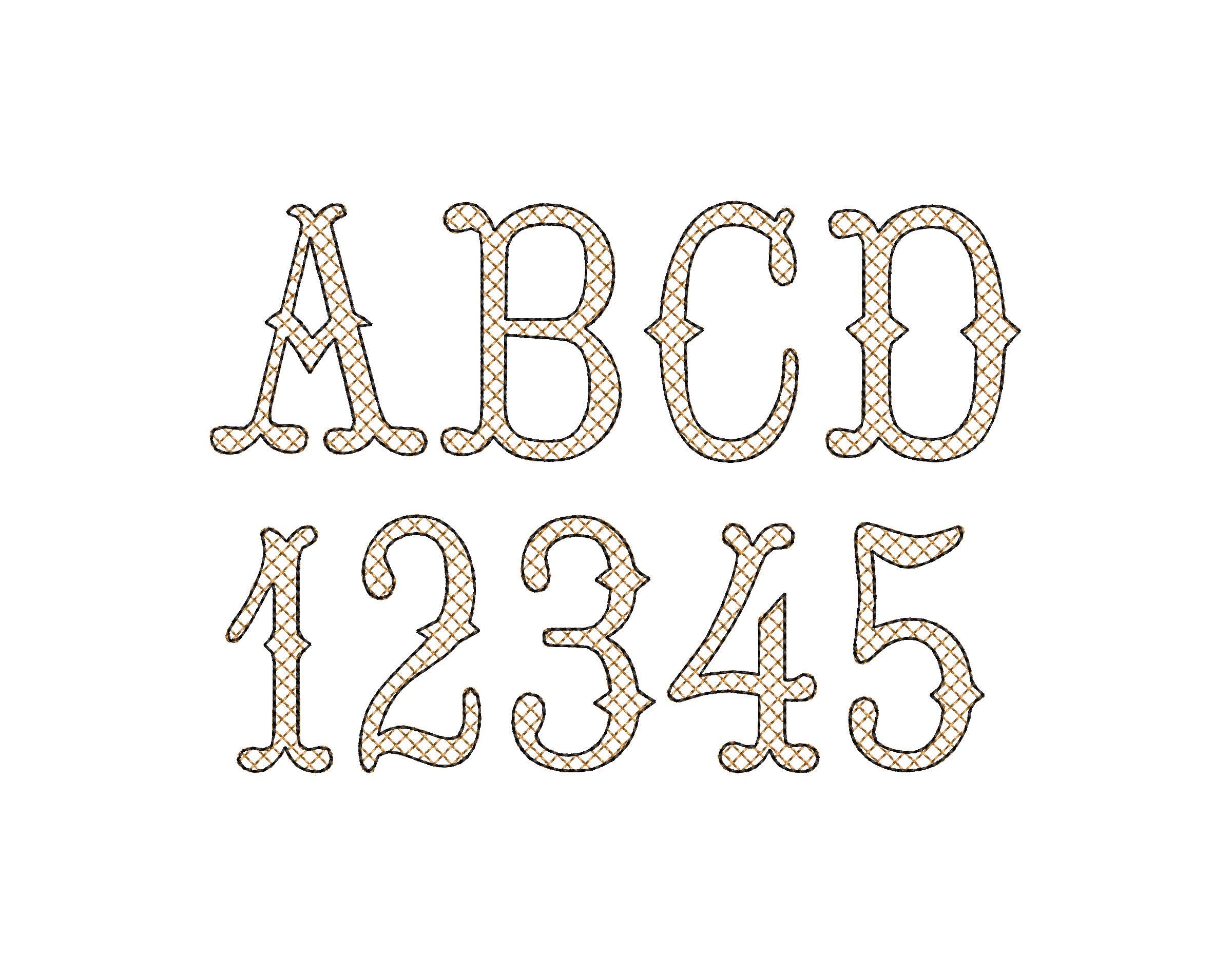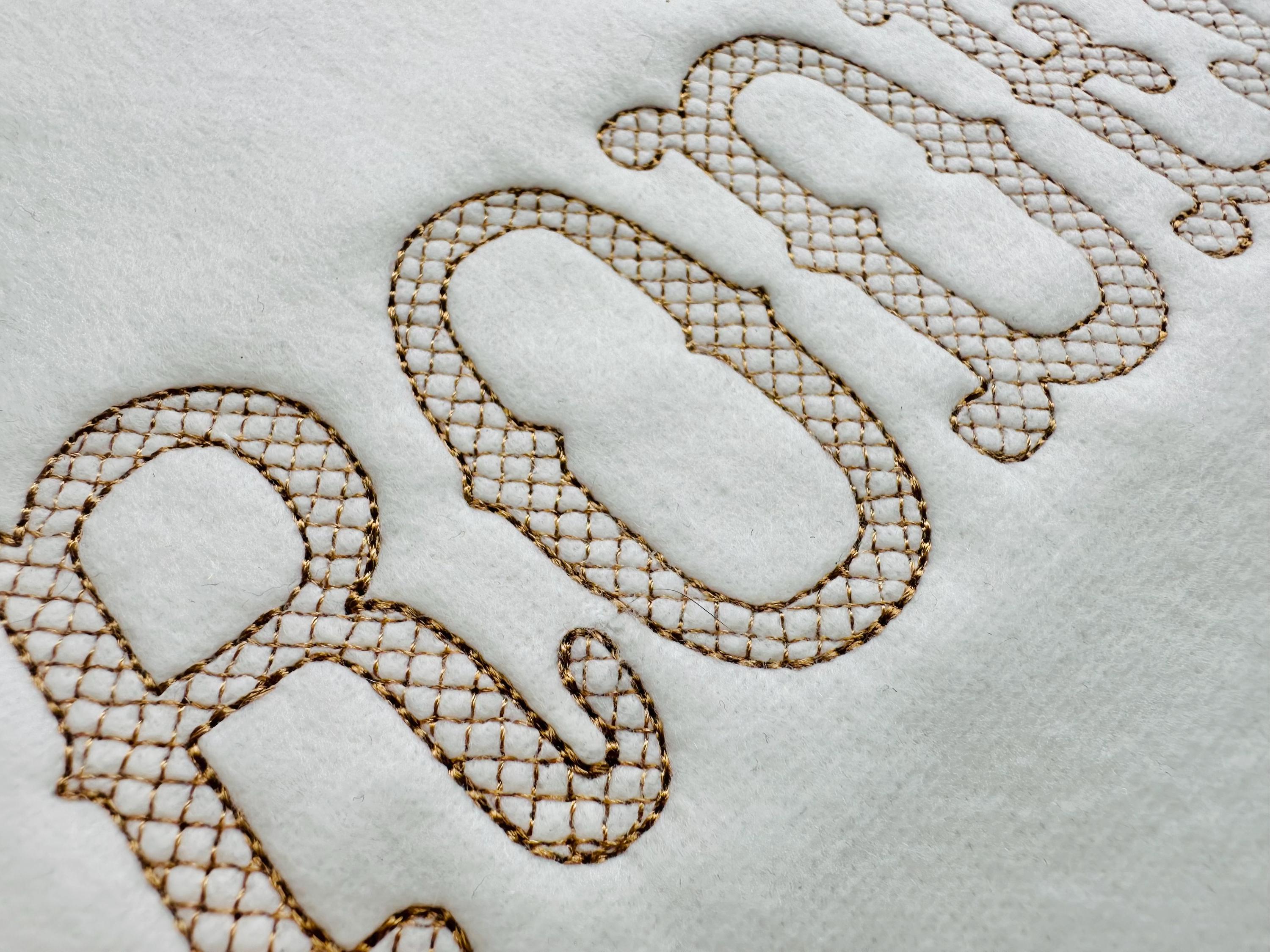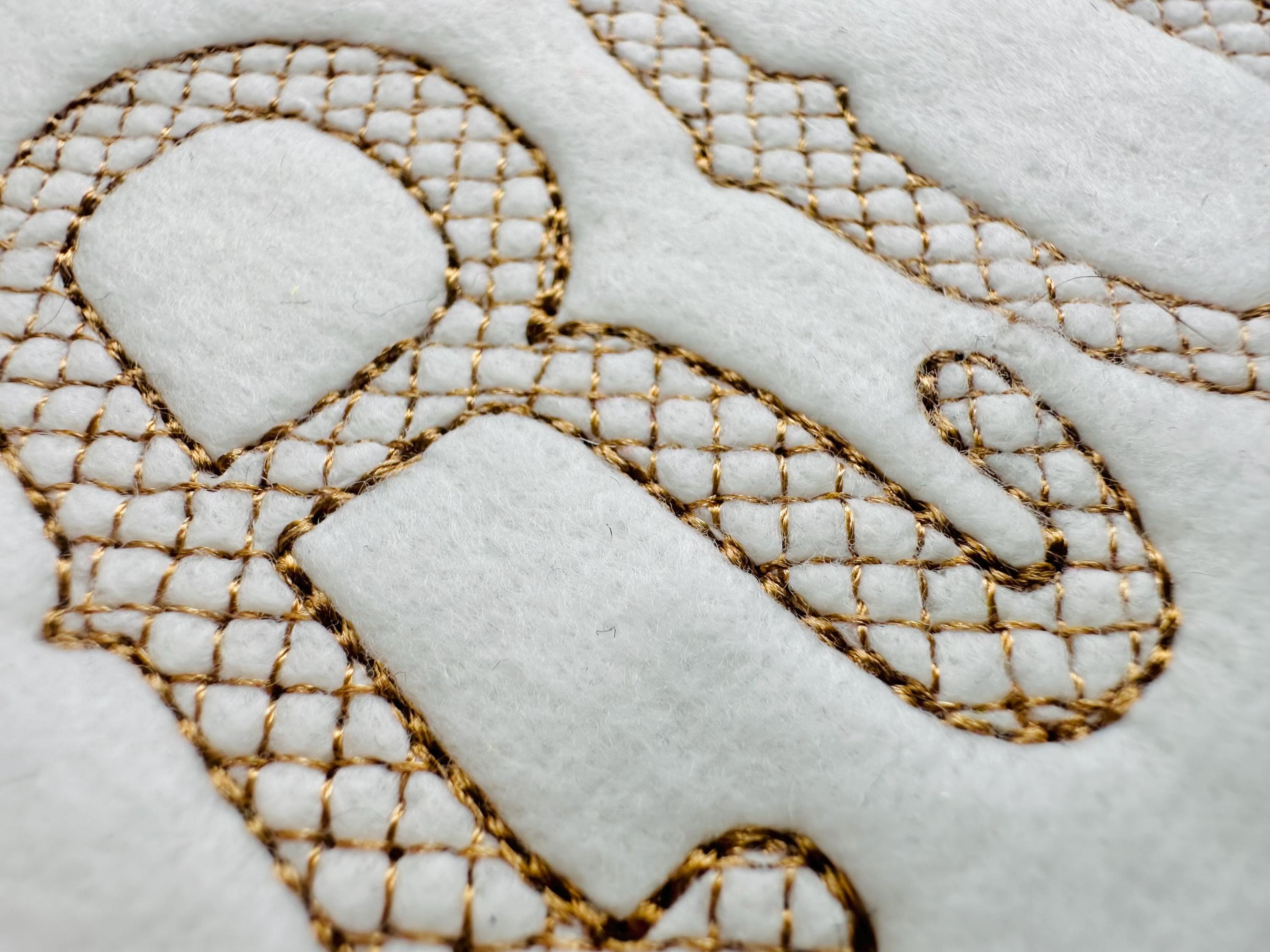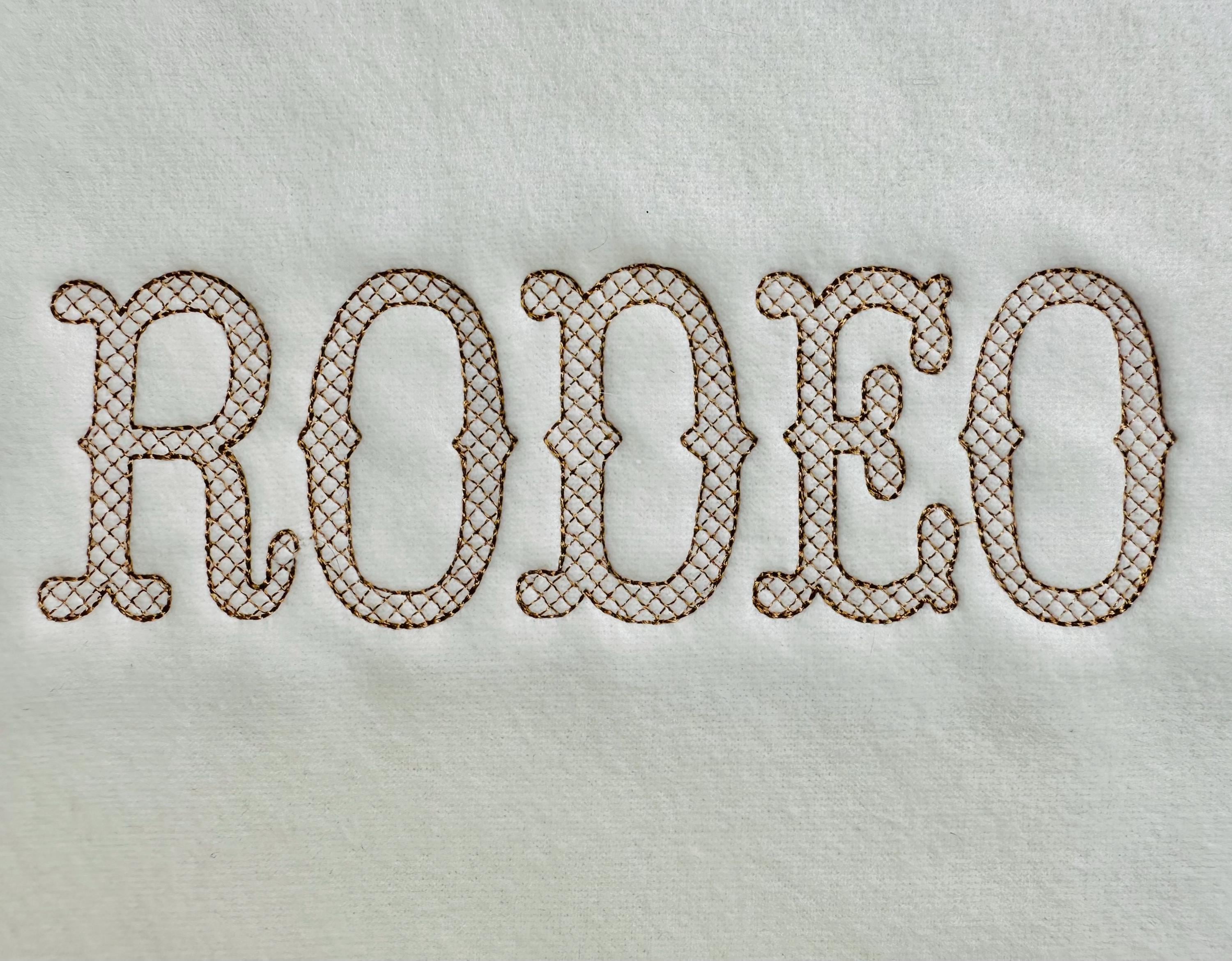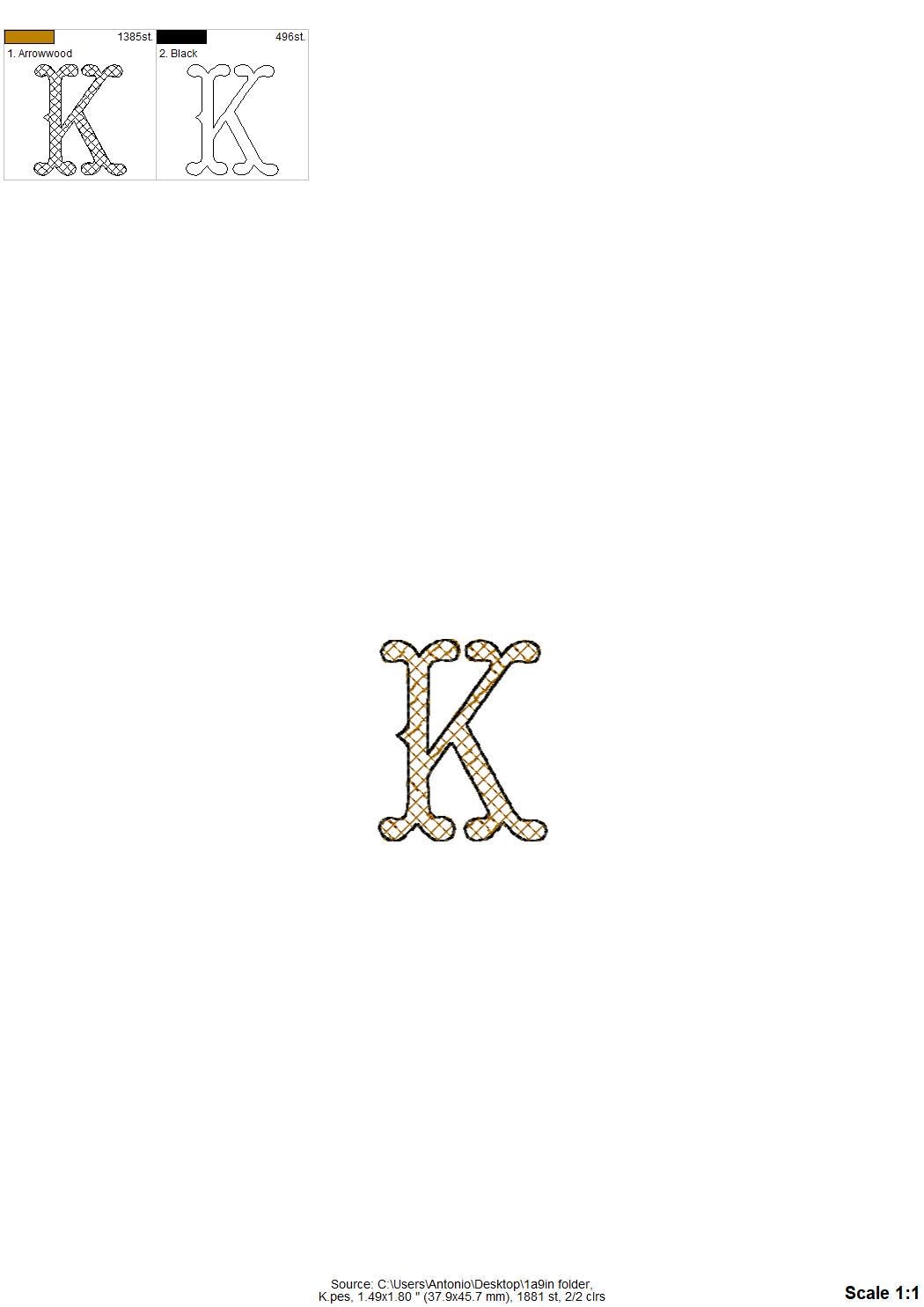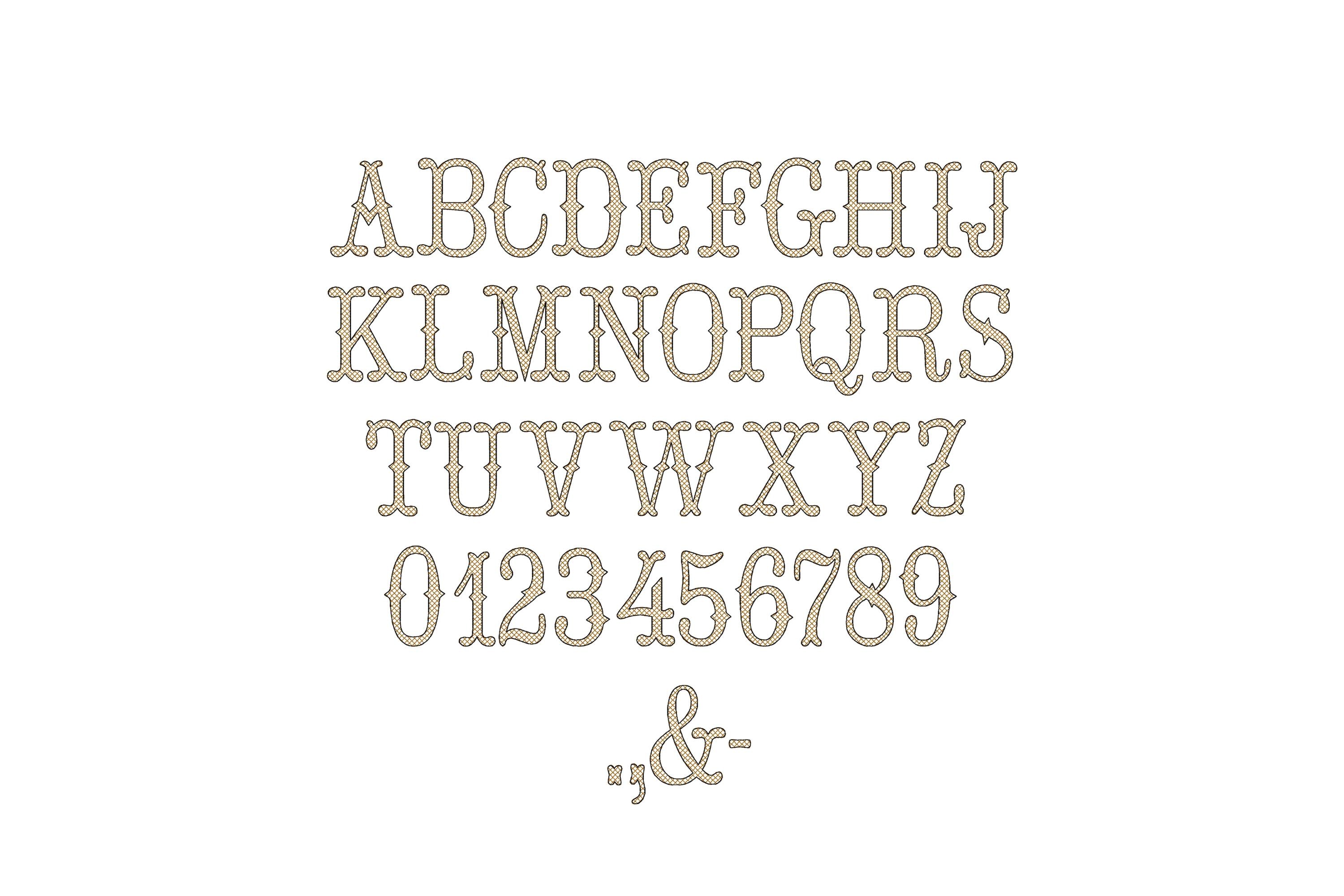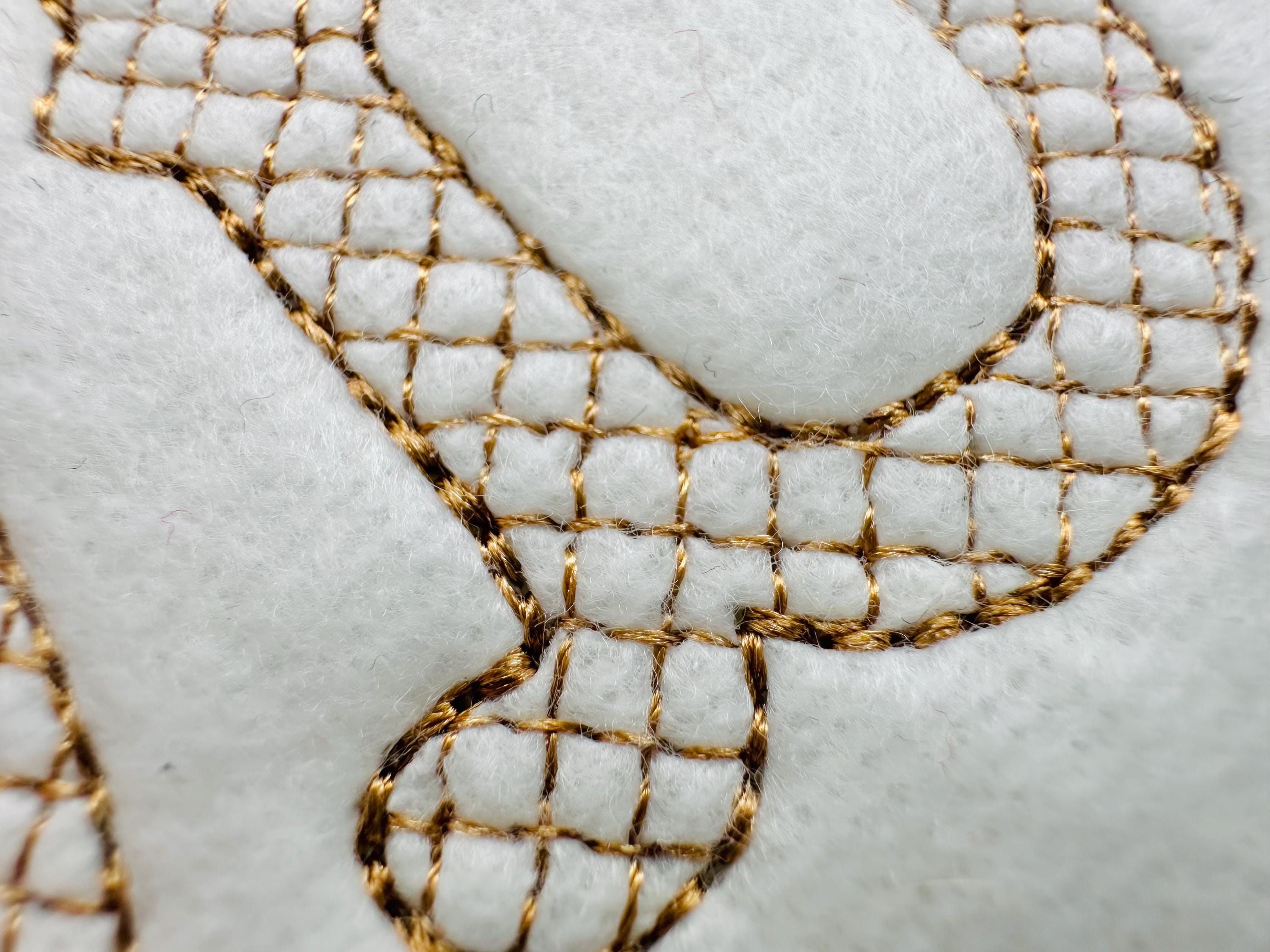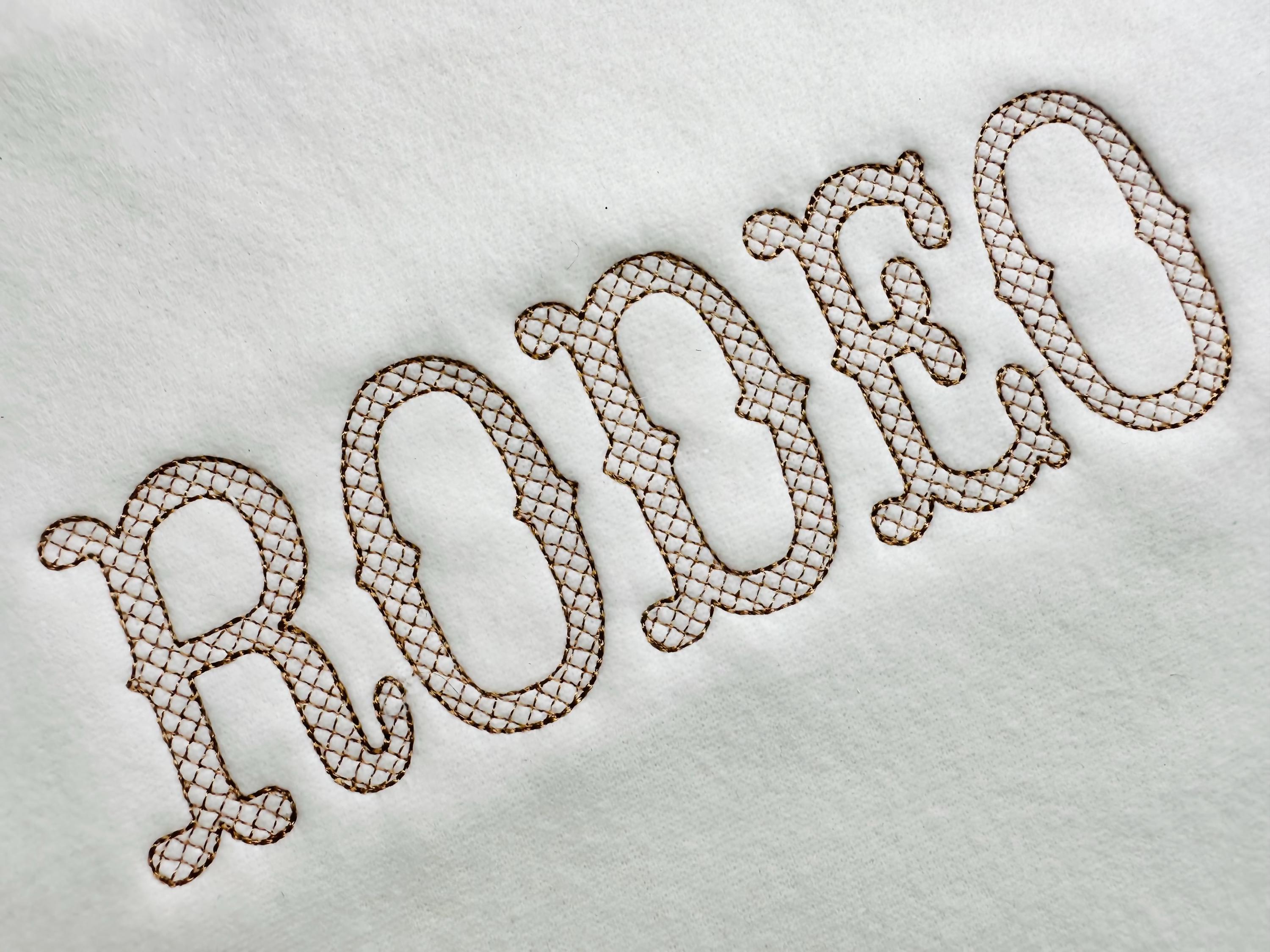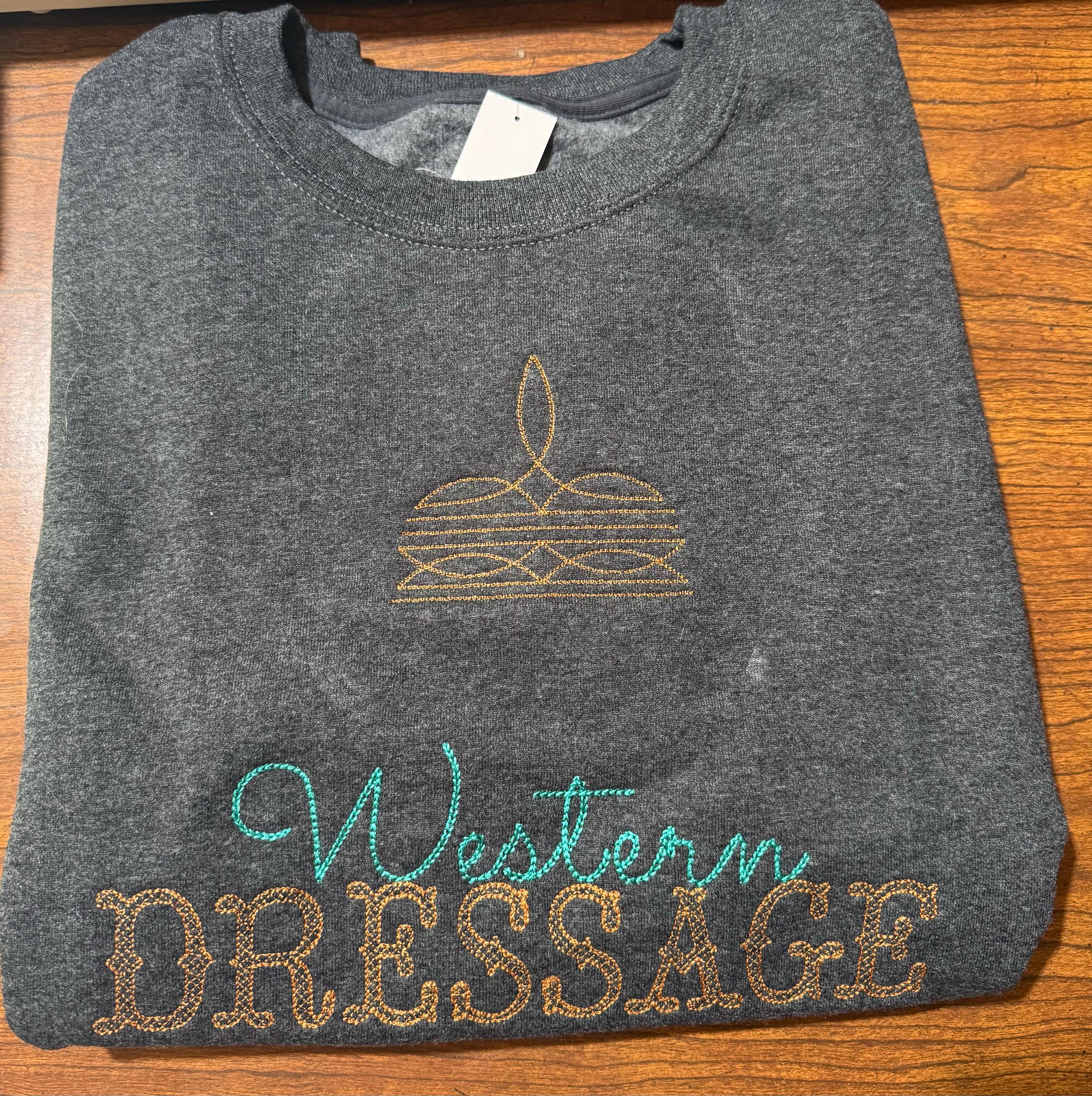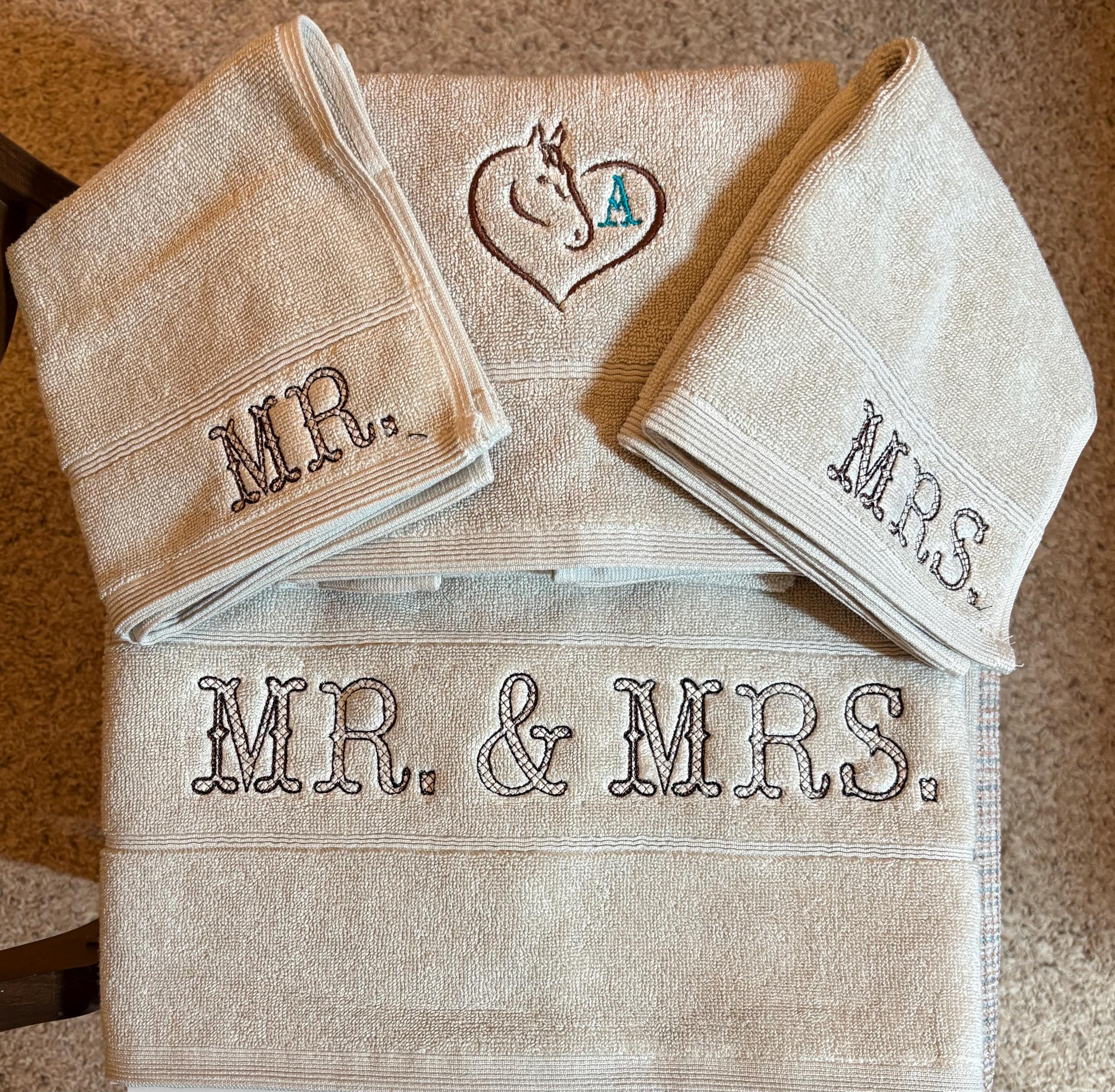
Western Font light stitch diamond pattern machine embroidery designs Cowboy Fishtail Monogram alphabet sizes 1.3 up to 2.6 inch, and BX
Whole alphabet: Uppercase letters A-Z, numbers 0-9, and punctuation.
This is a light stitch design, it's transparent, and the background fabric looks through. Stunning effect!